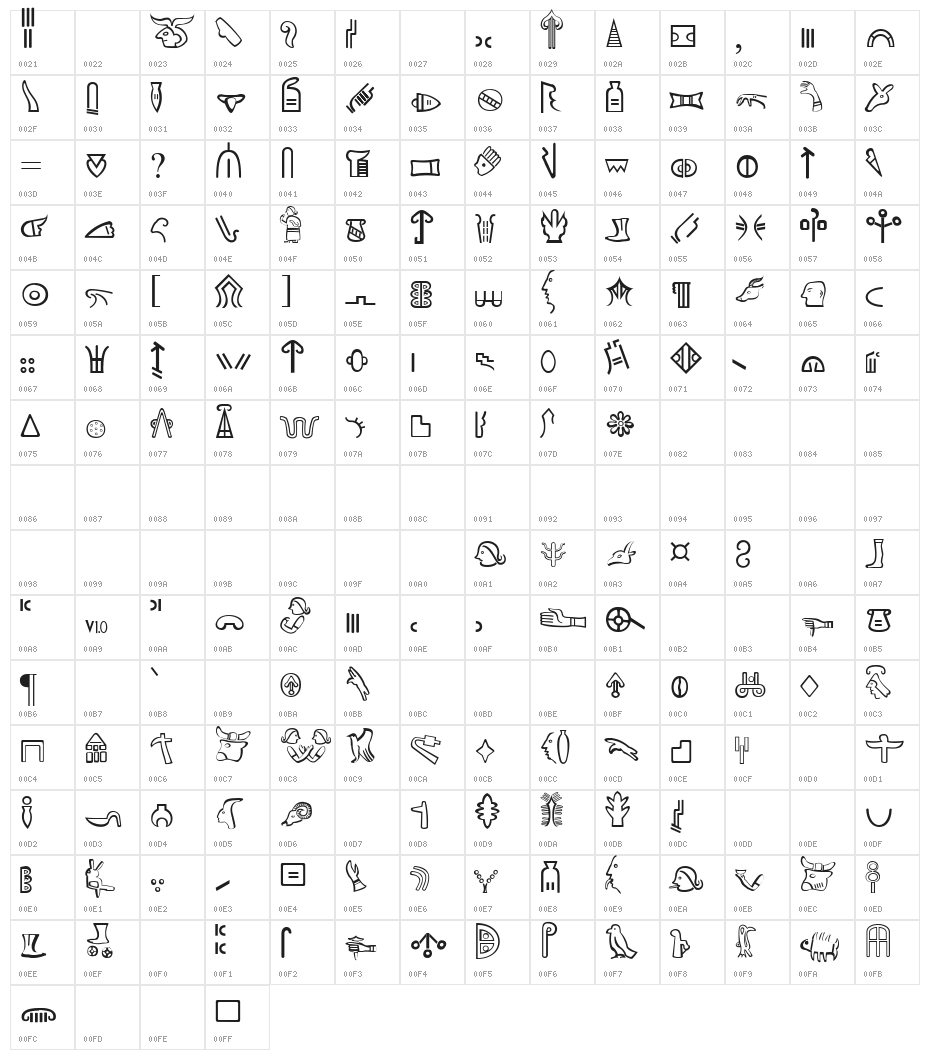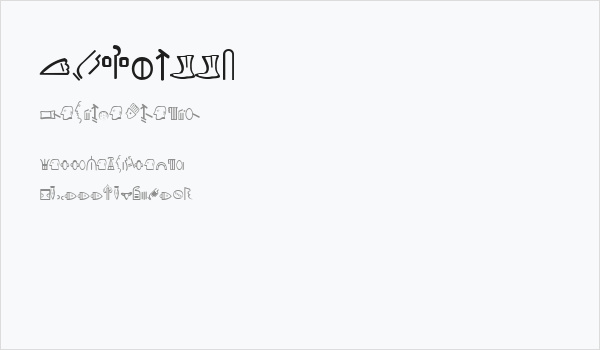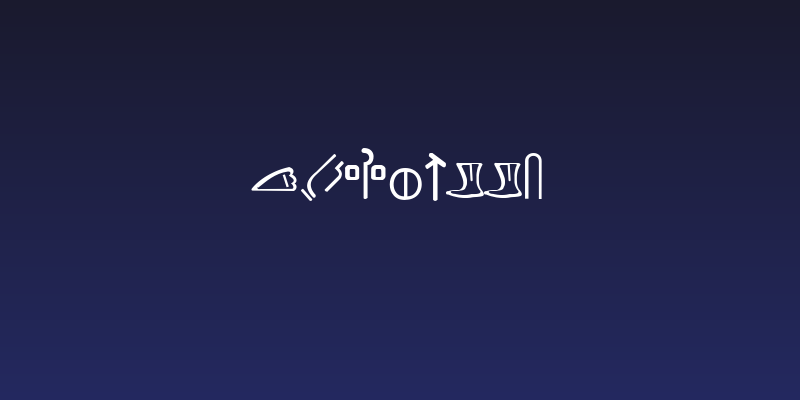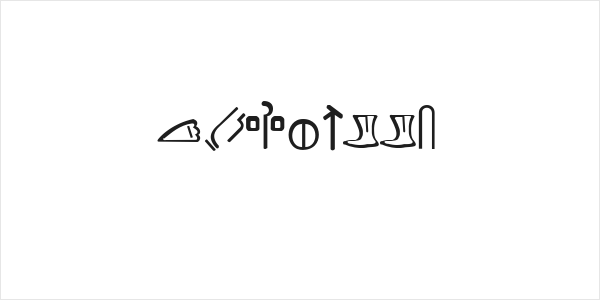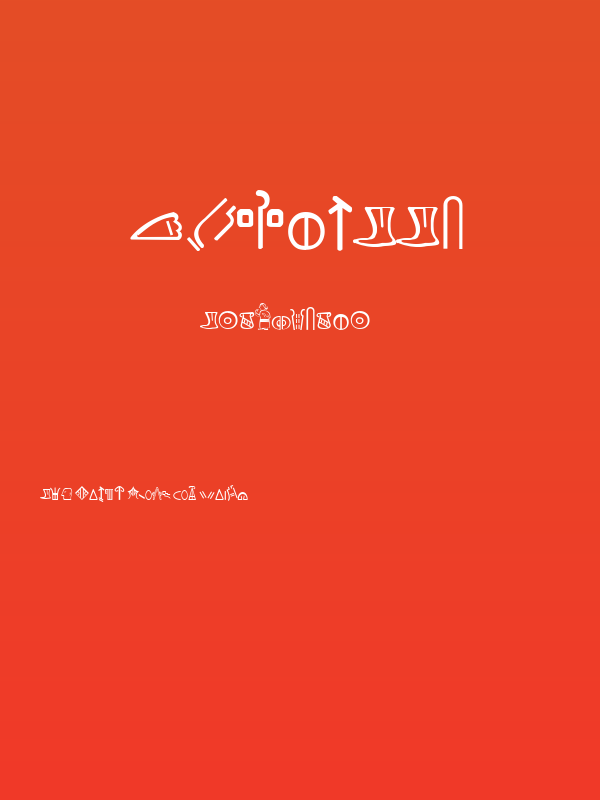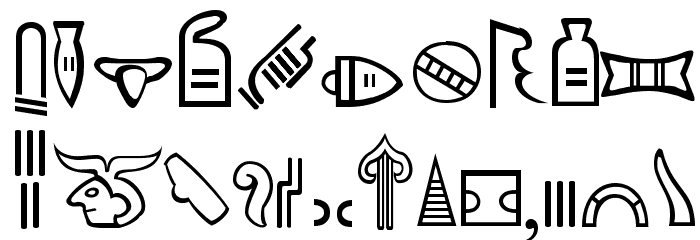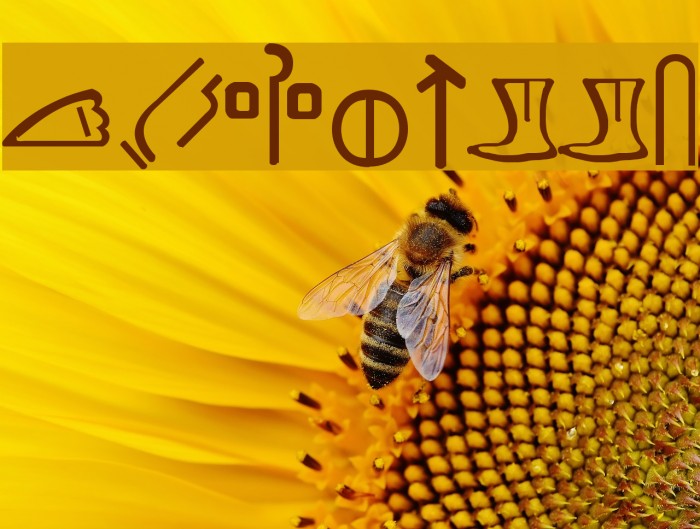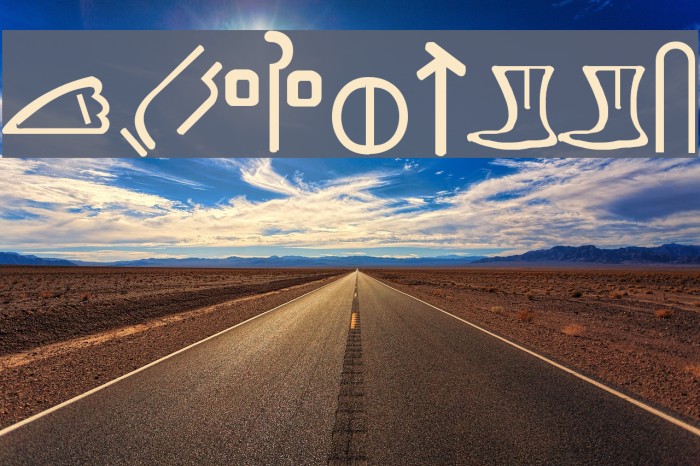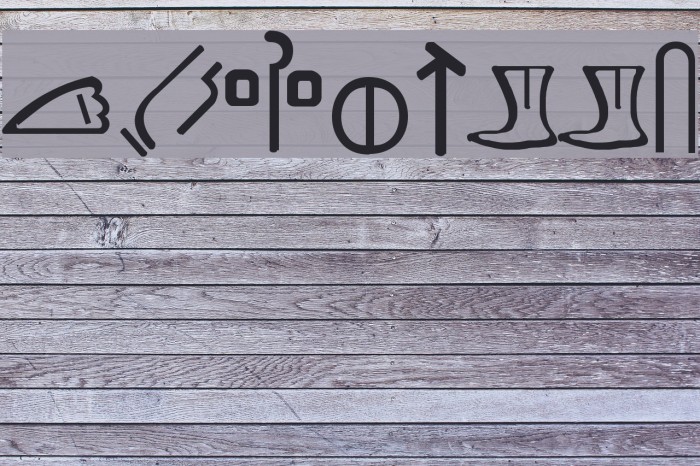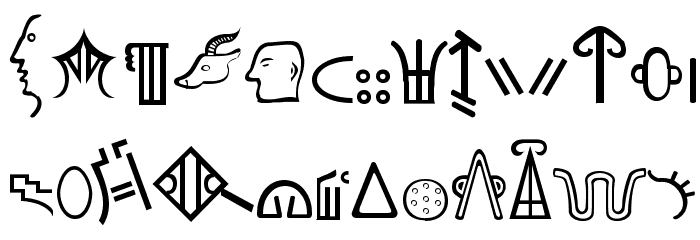
LUWHITTA Font
LUWHITTA Description
Highly decorative typeface inspired by ancient pictographic or hieroglyphic scripts, featuring intricate and illustrative glyphs that resemble symbols or drawings rather than standard alphabetic characters.
| Overall Style | Decorative, Ancient, Pictographic |
| Use Case | Logos, Posters, Themed Titles, Educational Graphics |
| Proposed Projects | Historical displays, museum graphics, fantasy games, themed posters, educational materials about ancient cultures. |